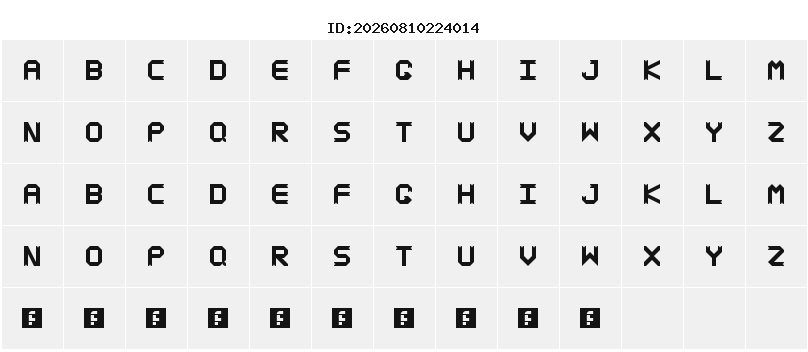
ribbon trim Preview
• Font Name: ribbon trim
• Full Font Name: ribbon trim Regular
• Designer: amethystlourve
• Description: “ribbon trim” was built with FontStruct
About ribbon trim.ttf
ribbon trim.ttf is a modern, elegant sans-serif font designed for ultimate readability and visual harmony. Perfect for branding, headlines, web design, and print materials.